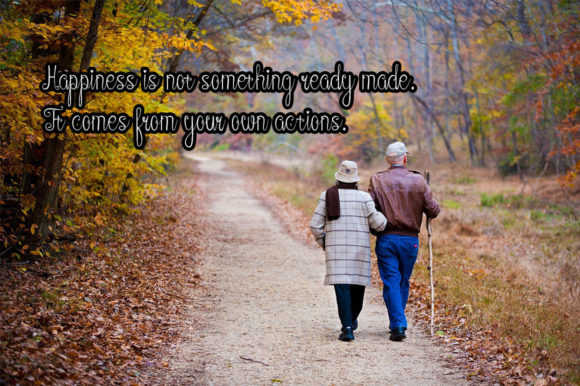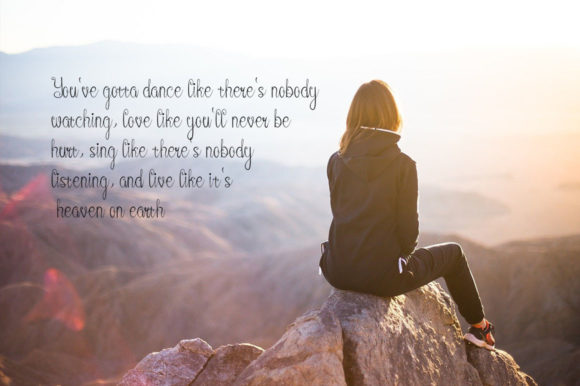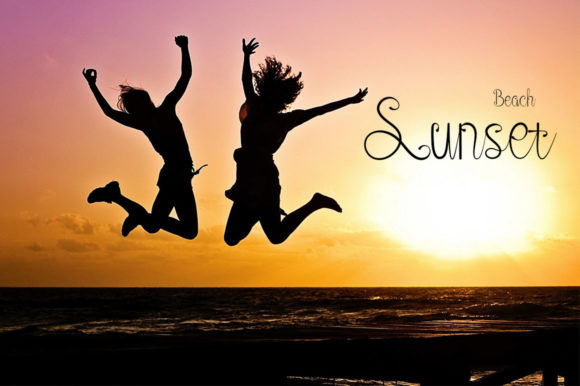
Introduction to Nitalia Font
Have you ever stared at a blank canvas, waiting for inspiration to strike? As a designer, that moment can be both exhilarating and daunting. But what if you had the perfect tool to elevate your creative project? Enter the Nitalia Font, a stunning script font that will transport your designs to new heights of elegance and sophistication.
Whether you’re crafting a logo, branding materials, or wedding invitations, the Nitalia Font is an indispensable design resource. Its refined and modern aesthetic makes it perfect for a wide range of applications, from social media posts to stationery and more. With a high-quality design and transparent background, this font is a must-have for any designer looking to add a touch of class to their work. And the best part? It’s available for free download, making it an accessible and valuable addition to your design toolkit.
Key Features of Nitalia Font
- High-quality, elegant design perfect for creative projects and design resources.
- Comes with transparent background for seamless integration with any design.
- Features a unique, cursive script with a touch of sophistication and style.
- Designed to be versatile and suitable for a wide range of applications, from wedding invitations to branding materials.
- Available in a single size, making it easy to use in various design contexts.
Honest Review: Nitalia Font
As a designer, I’m always on the lookout for high-quality design resources to elevate my creative projects. The Nitalia Font is one such resource that caught my attention.
Here’s what works well:
- ✨ Beautiful, elegant design that’s perfect for luxury or high-end branding projects.
- ✨ Comes with a transparent background, making it easy to customize and use in various design contexts.
- ⚠️ Limited character set, which may not be ideal for complex or multi-language projects.
- ⚠️ Not suitable for use in digital platforms where font sizes need to be adjusted, as it may lose clarity.
Overall, I’m impressed with the Nitalia Font’s high-quality design and versatility. While it may have some limitations, it’s a great resource for designers looking to add a touch of elegance to their creative projects. If you’re working on a design project that requires a luxurious feel, the Nitalia Font is definitely worth considering.
How to Use Nitalia Font
Nitalia Font is a high-quality design resource perfect for creative projects that require a unique and elegant touch. With a transparent background, this font is versatile and can be used in various design applications.
Tips for Getting the Most Out of Nitalia Font
To get the most out of Nitalia Font, use it in combination with other design elements, such as images and graphics, to create a visually appealing design.
Nitalia Font is perfect for:
- Book covers and magazine titles